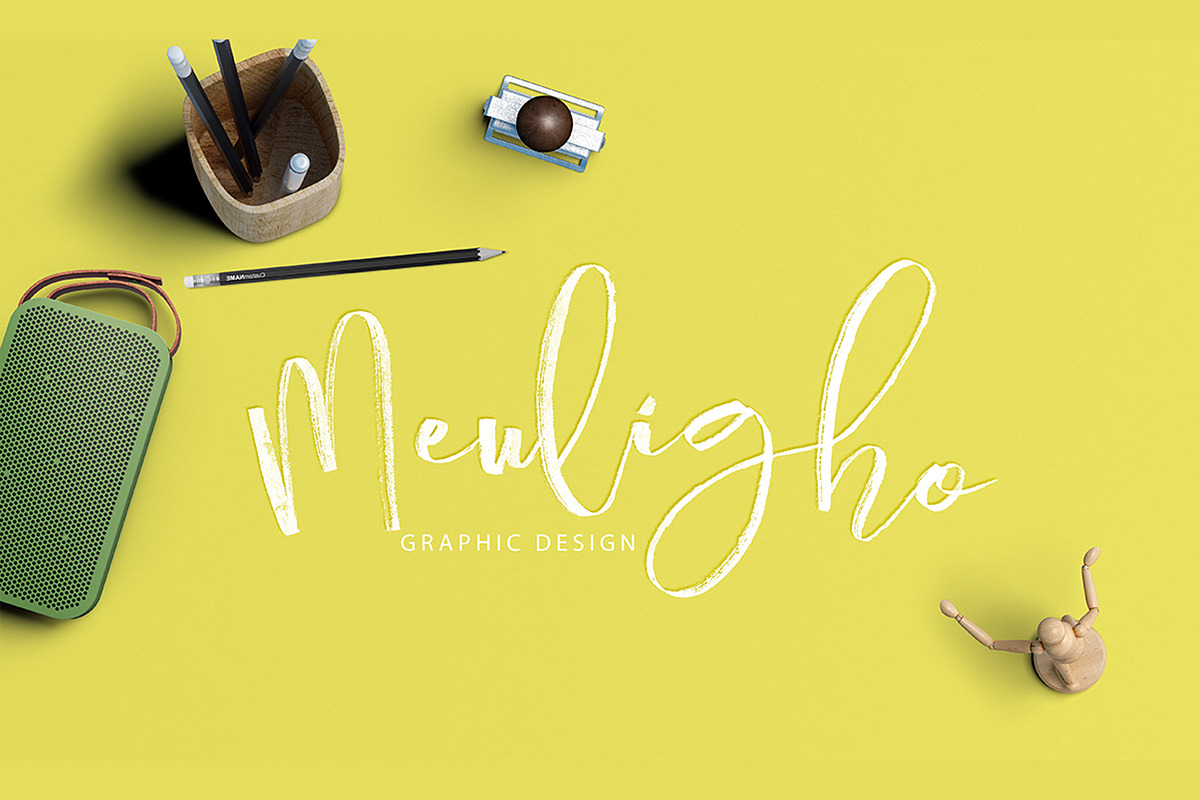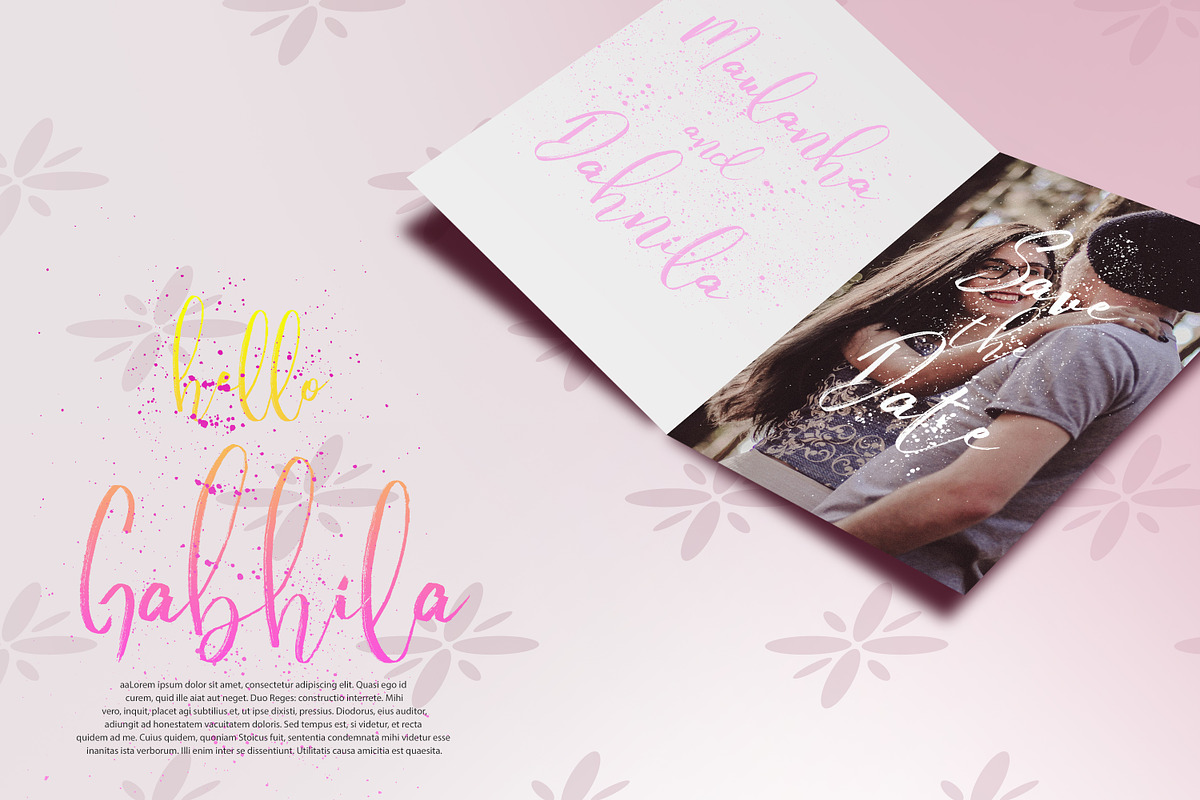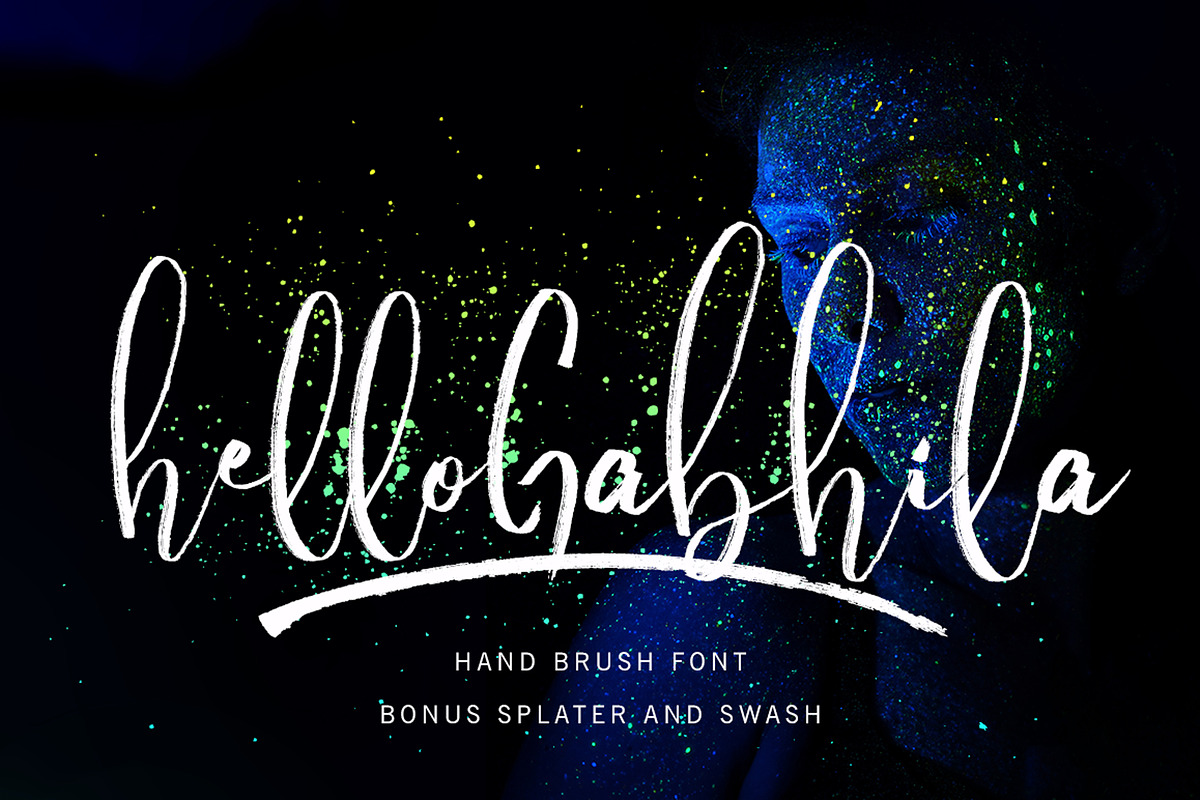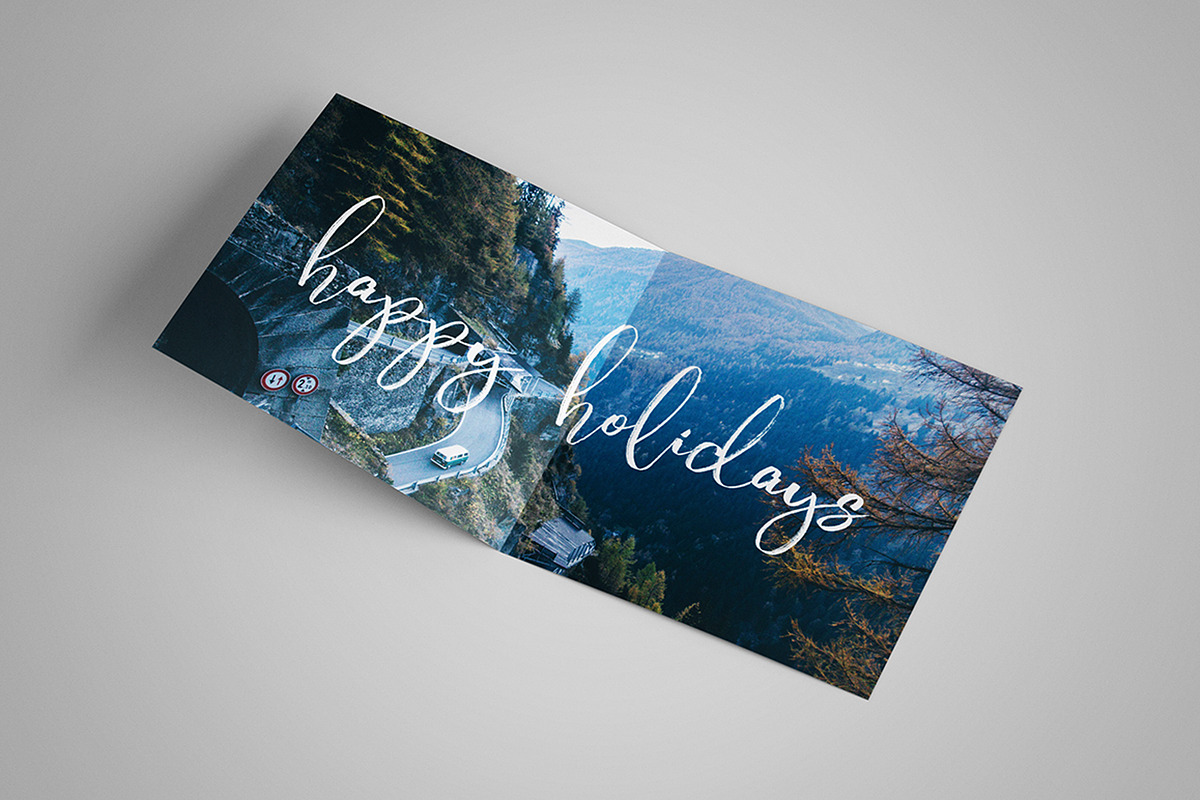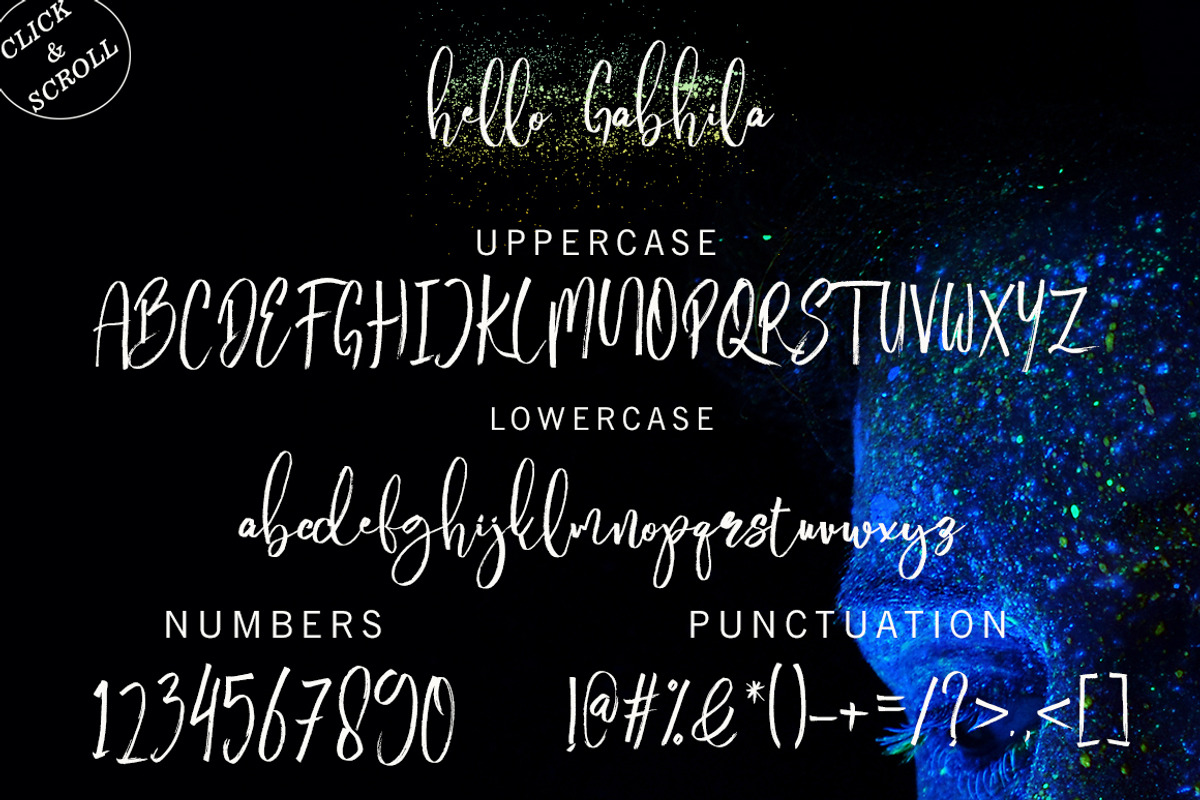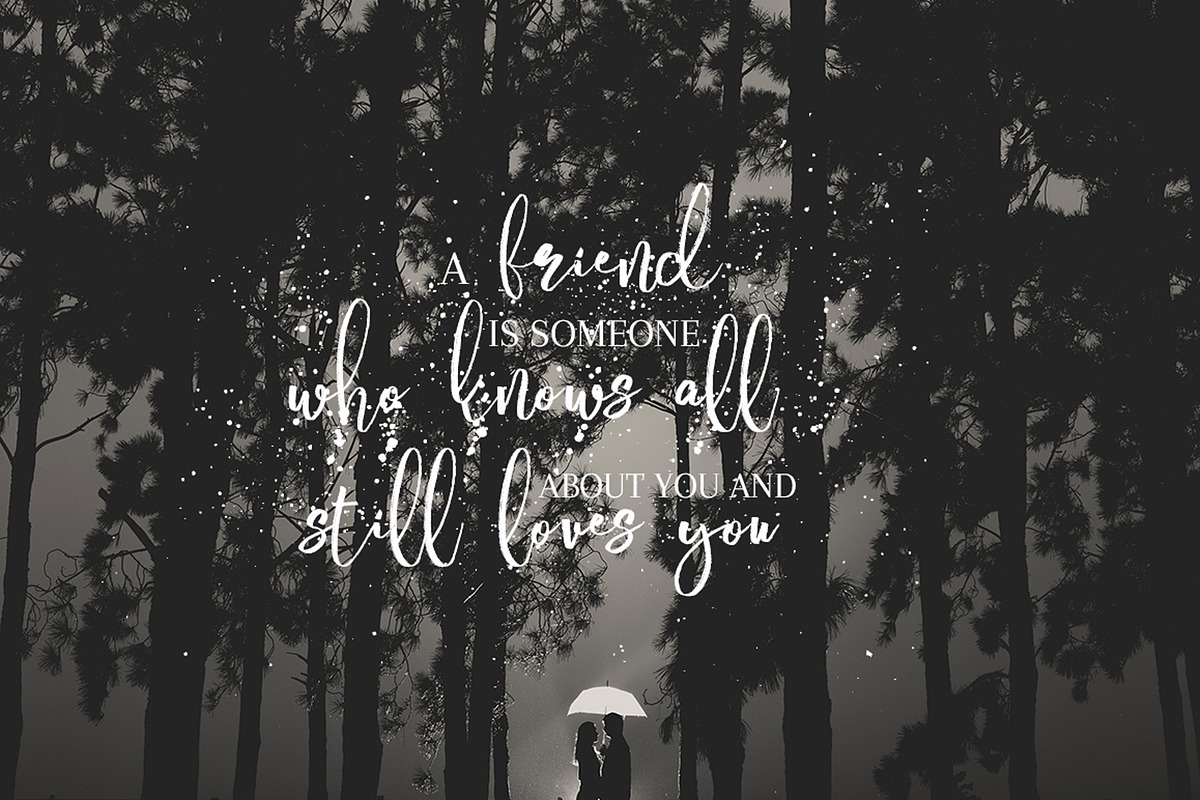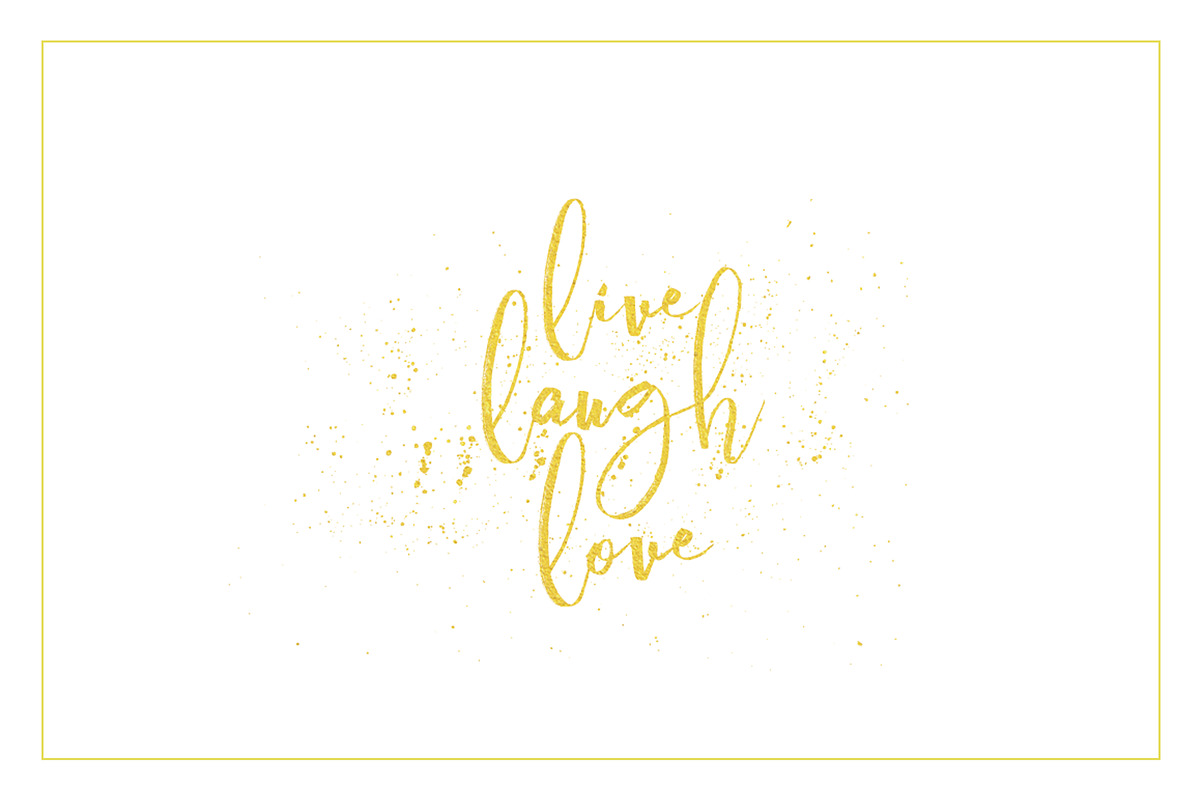
Hello Gabhila is brush script font + swash and splater. With modern script style this font will perfect for many different project ex: quotes, blog header, poster, wedding, branding, logo, fashion, apparel, letter, invitation, stationery, etc.